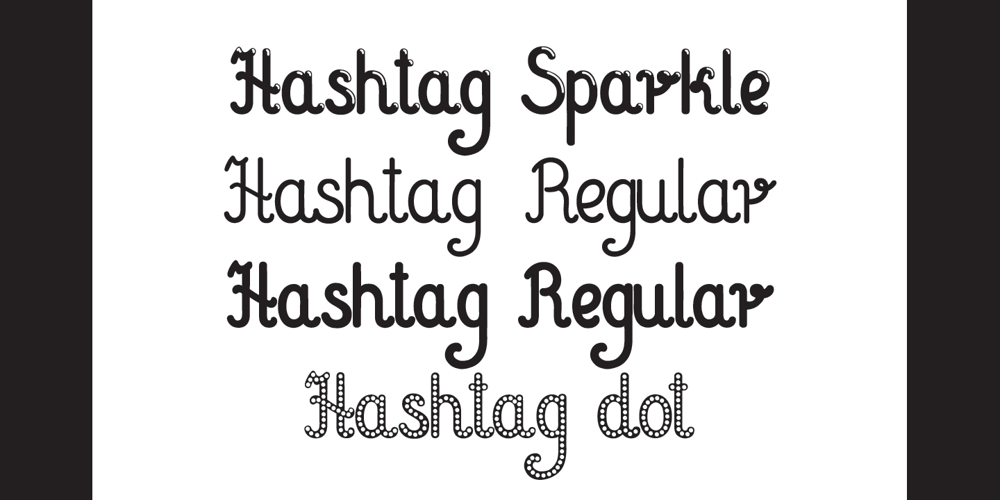
Hashtag Font Family was designed by published by Agnieszka Ewa Olszewska. Hashtag contains 4 styles and family package options. Hashtag is a type family of four types.The font contains over 360 carefully hand-crafted glyphs. Very elegant and gentle in big sizes but is very legible in smaller sizes and longer texts – in print or on screen. As an exclusively OpenType release, these fonts have an extended character set to support Central and Eastern European. Hashtag is perfect for logos, advertising, announcement, invites, thank you�s and correspondence, for packaging, and to create all yours fun and moderns designs you want. There are plenty of options to allow you to create something unique and special. I hope you like him as much as I do!